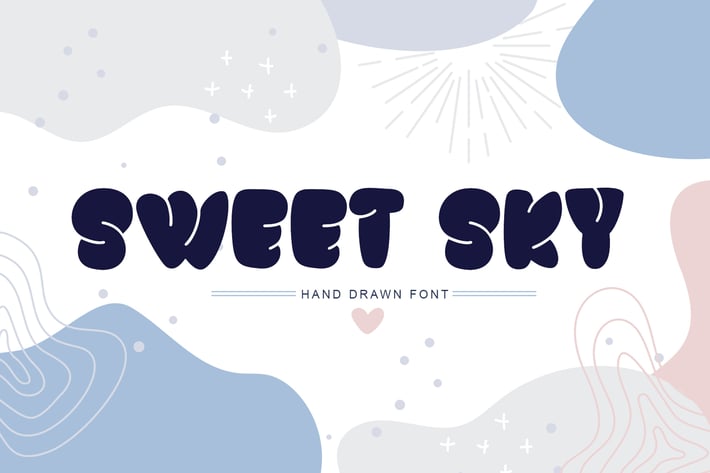
Sweet Sky Rotund Font
Unique handmade cute Sweet Sky Rotund Font is modern display font.
Each time when you`ll type the text with Sweet Sky Rotund Font, you will want to return to it again and again, because it sweet dreams for designers, blogers and everybody who loves handwritting.